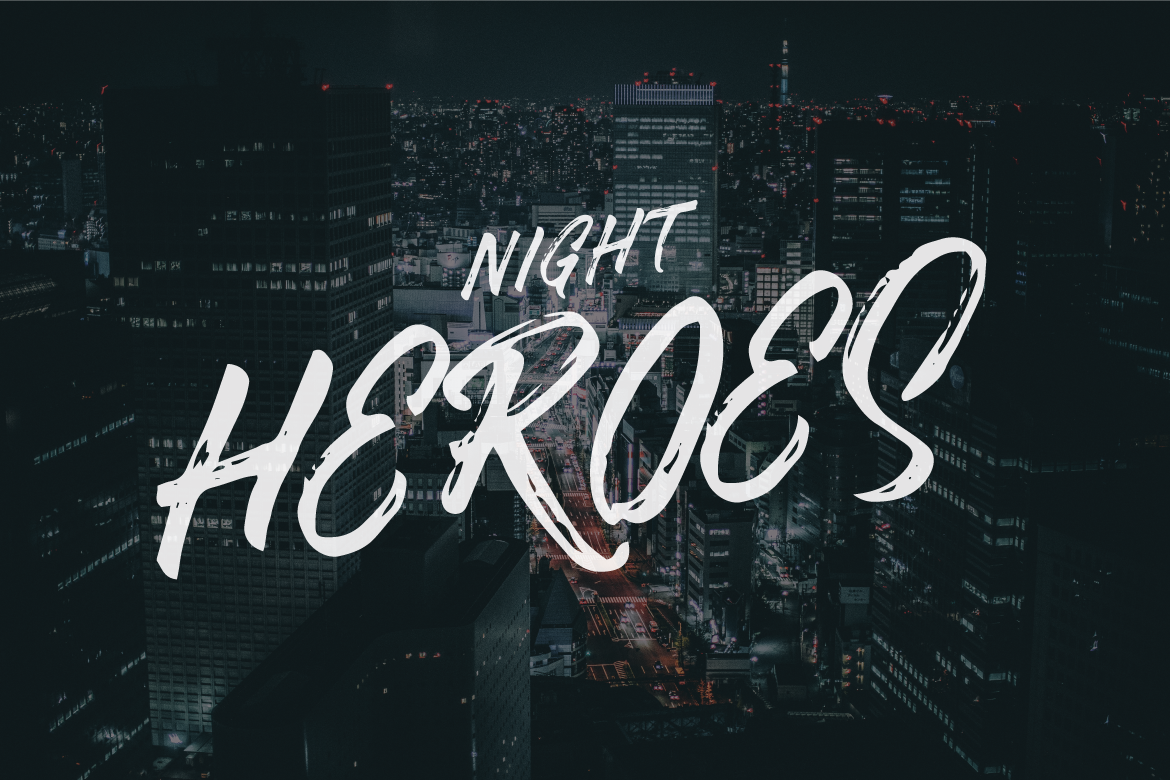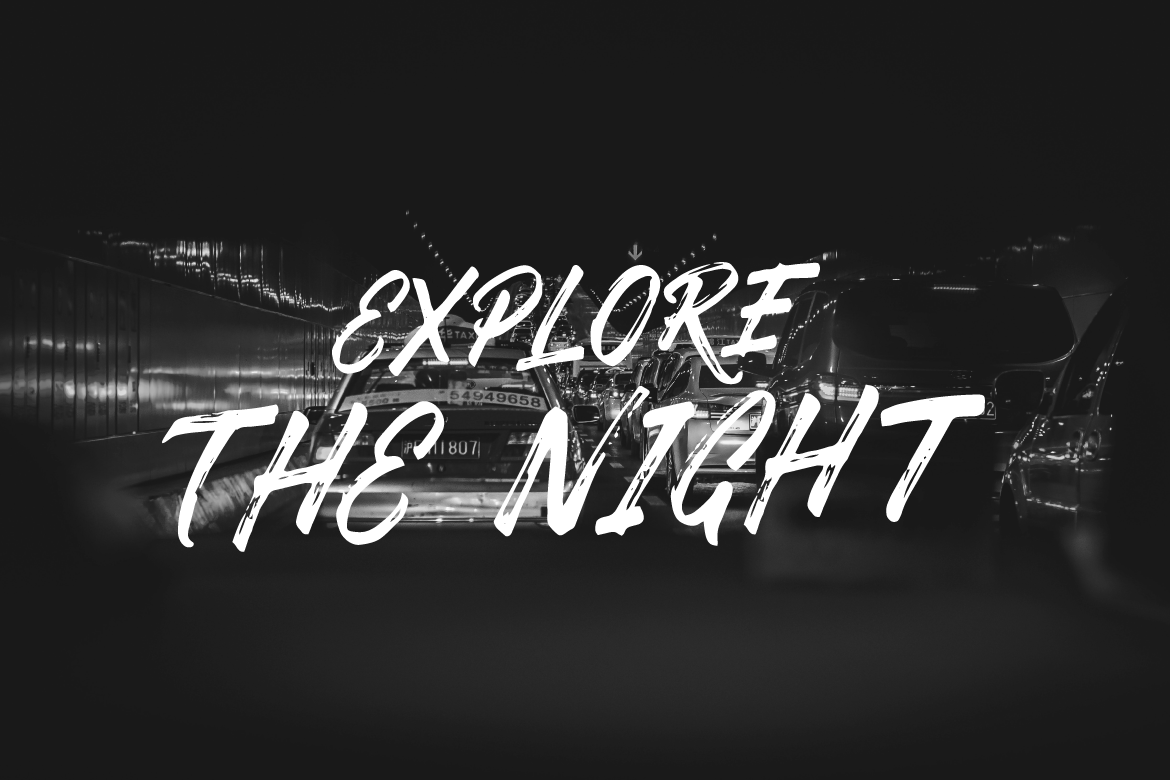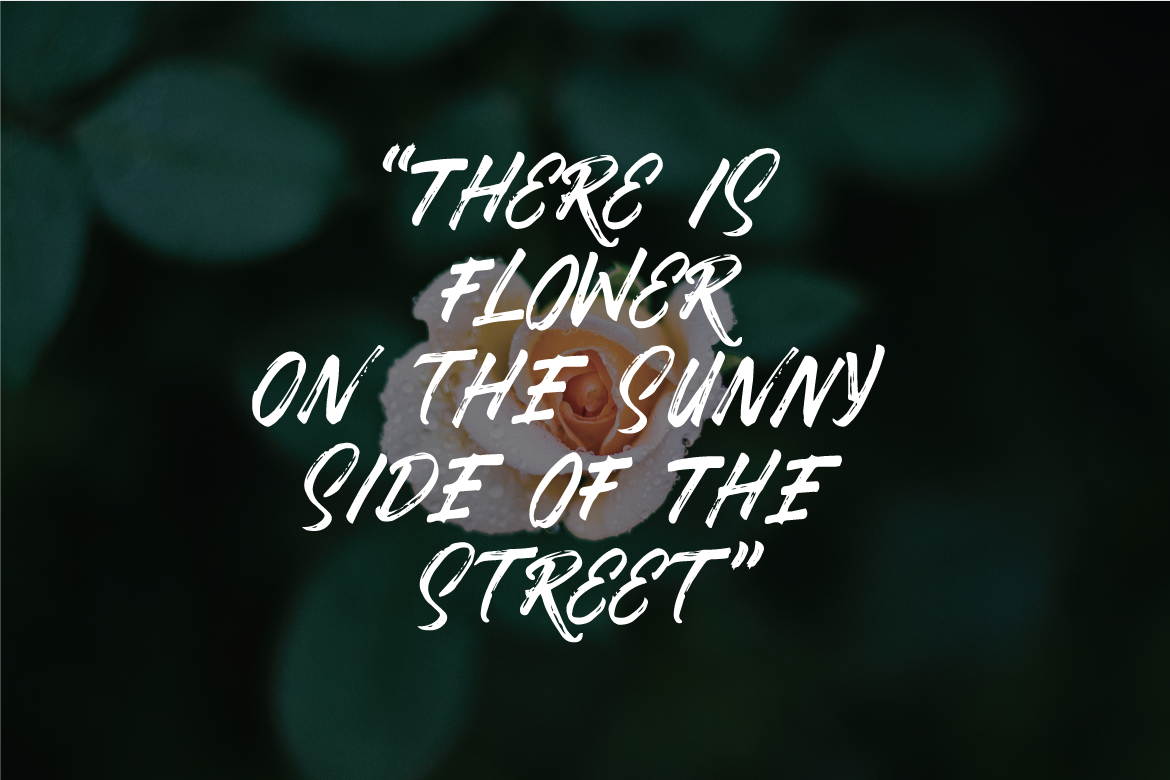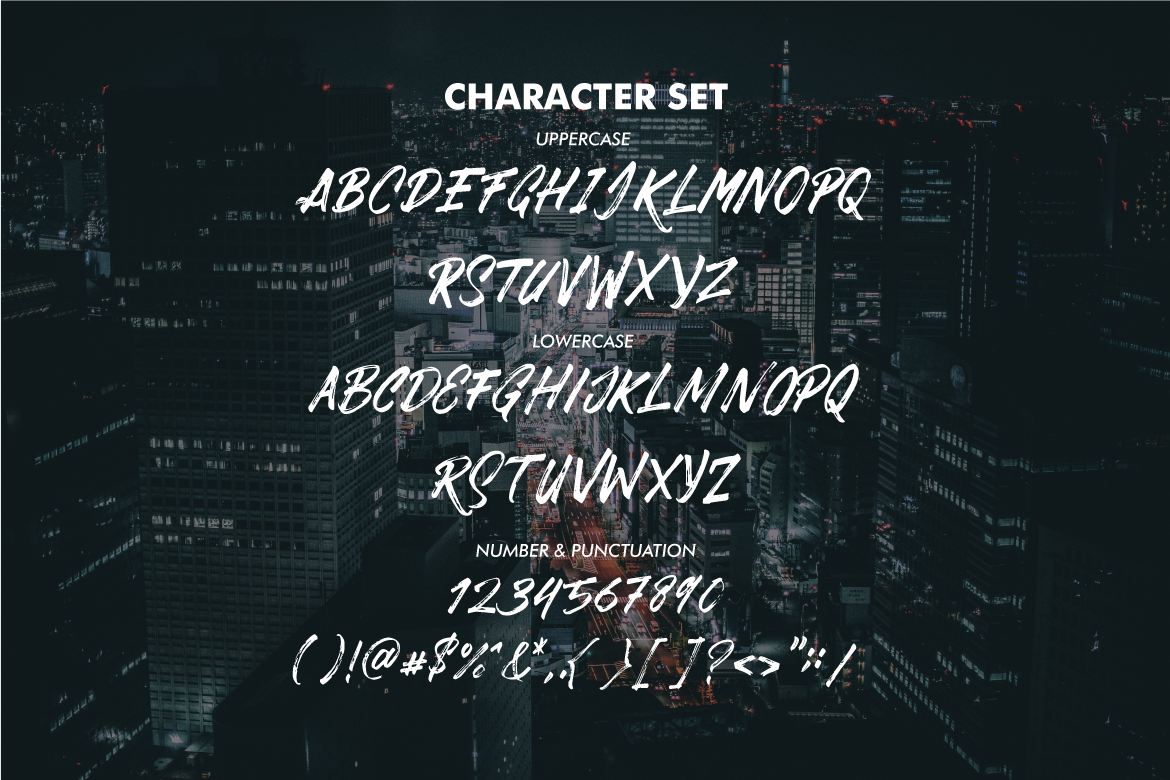
Dabrush Font
About Dabrush Font
DaBrush is a dry brushed font with the edgy characters and the rustic brush effect. Add Dabrush to hip, trendy designs for maximum impact!